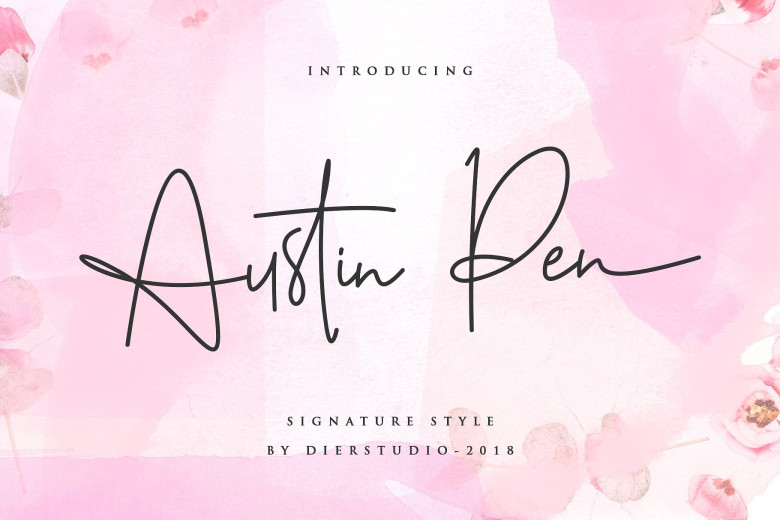
Austin Pen Signature Font
If you are looking for a handwriting like that then it’s here. A perfect signature style font, it is completely manual, so it is the most authentic. Introducing Austin Pen Font. Austin Pen is an created by Dierstudio. Austin Pen is a handwritten signature script with a natural & stylish flow. This collection of scripts is this works well for many applications. Everything for any design project such as logos & branding, invitation, stationery, wedding designs, social media posts, advertisements, product packaging, product designs, label, photography, watermark, special events or anything that need that authentic handwriting taste and you could benefit from this collection of signature fonts.